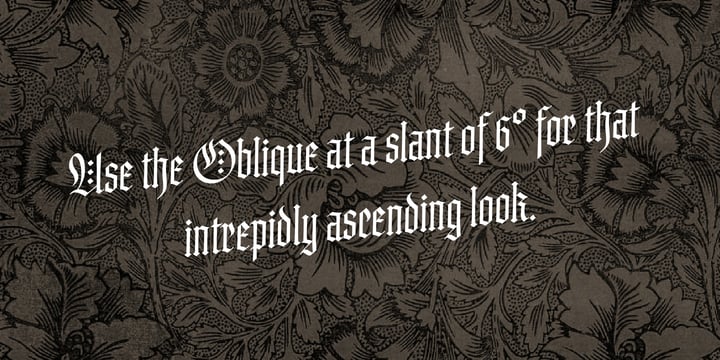
Brilliance
Brilliance by Catharsis Fonts
Brilliance Font Family was designed by Christian Thalmann and published by Catharsis Fonts. Brilliance contains 2 styles and family package options. More about this family
About Brilliance Font Family
Brilliance is a glamorous contemporary display blackletter combining the rich tapestry of Textura with a hint of the airy lightness of Spencerian script, ideal for display purposes. In addition to exuberant, swashy capitals and crisp, rhythmic lowercase letters, Brilliance offers a set of unique small capitals modeled on condensed Roman lettershapes. They can be used to replace the lowercase (SMCP feature) for a highly condensed titling style, or to replace the capitals (C2SC feature) for a compact, legible text style. Like all Catharsis Fonts products, Brilliance comes with extensive language support, ligatures, and contextual and stylistic alternates, and careful spacing and kerning. The starting and ending flourishes in the last poster images can be obtained either via stylistic alternates of the guillemets (��), or by typing two or three guillements in a row. Acknowledgements: Brilliance was designed entirely in the Glyphs Application, though it closely follows a calligraphic style I developed for myself with the broad-nib pen, which in turn draws on many inspirations from traditional and contemporary blackletter calligraphy. The font greatly benefited from helpful feedback from the Typophile and TypeDrawers forums. The background texture in the promotional posters is by MGB-Stock. This font is dedicated to Simone, who gave me a Pilot Parallel Pen for my birthday and thus set all of this in motion.
About Catharsis Fonts